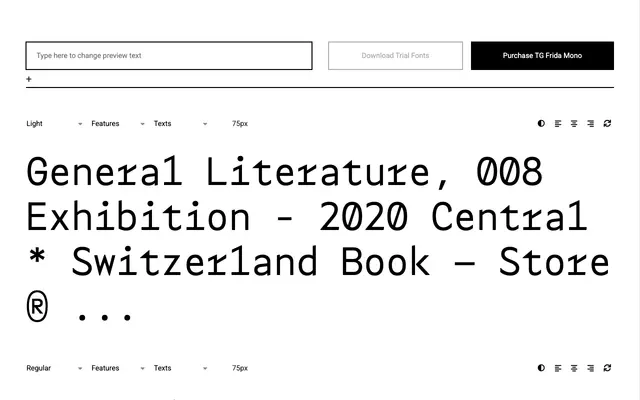
TG Frida Mono
A geometric monospaced typeface with humanist details across six weights, designed by Iqbal Firdaus for Tegamitype.
Six weights from Light to ExtraBold make up TG Frida Mono, a geometric monospaced design that incorporates humanist-style stroke details to soften its technical precision. Alternate characters are included to extend design possibilities beyond the standard character set. Available in OTF, TTF, WOFF and WOFF2 formats with broad Latin script coverage spanning over 100 languages.
Explicitly described as a monospaced font combining geometric design with humanist-style details, placing it squarely in the geometric mono category.